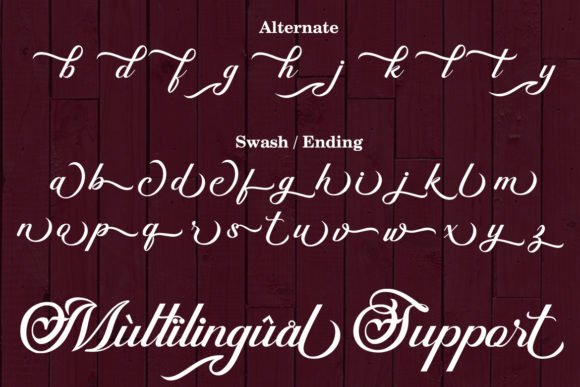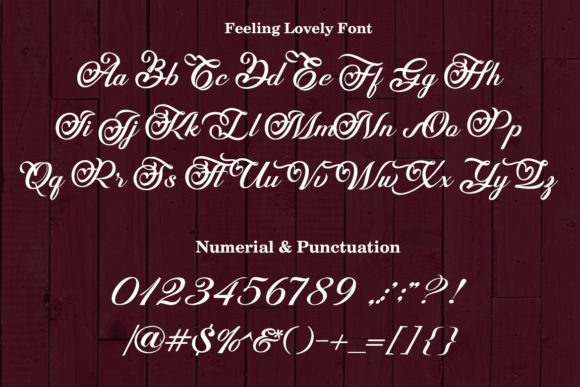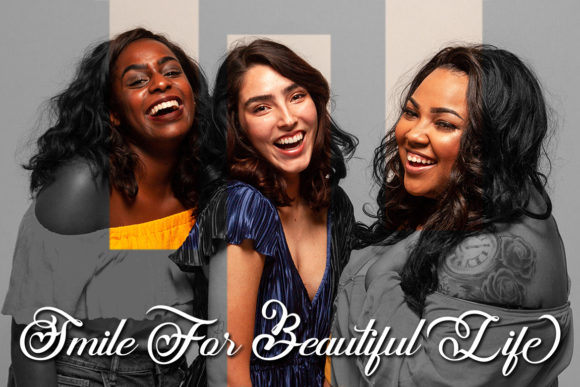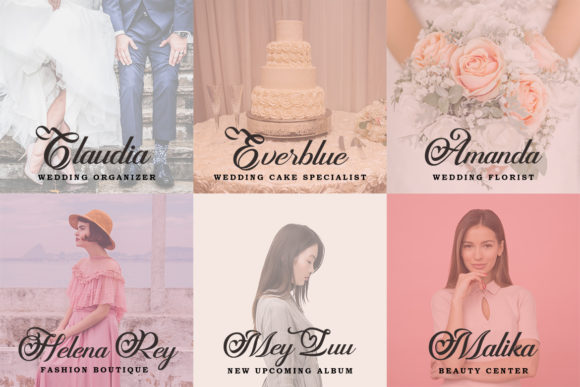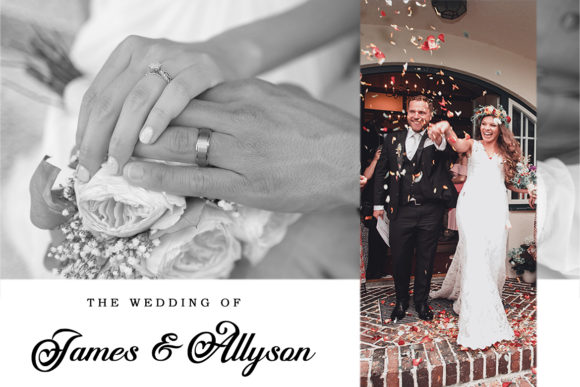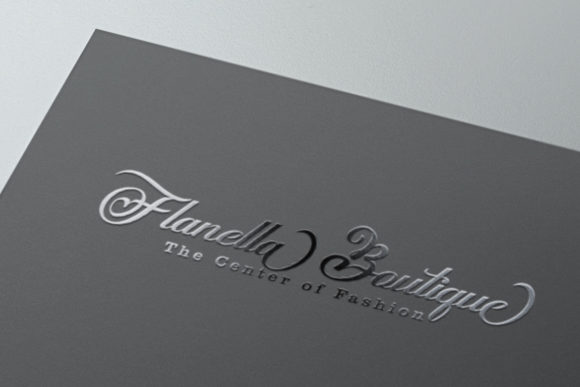
Introducing Feeling Lovely Font: Elevate Your Designs with Elegance
In the world of typography, a well-crafted font can make all the difference in elevating your designs to new heights. For those seeking an elegant and modern calligraphy font, look no further than Feeling Lovely Font. This stunning typeface boasts a unique varying baseline, giving it a distinctive and sophisticated feel that’s perfect for a wide range of applications.
What Makes Feeling Lovely Font So Special?
The Feeling Lovely Font is an exquisite example of modern calligraphy, designed to add a touch of luxury and refinement to any design project. Its elegant lines, flowing curves, and subtle variations in baseline create a sense of movement and fluidity, making it a standout choice for designers and crafters. Whether you’re working on a wedding invitation, a logo, or a branding project, this font is sure to impress.
One of the most significant advantages of Feeling Lovely Font is its incredible versatility. This font can be used for a wide range of purposes, including:
- Headings: Add a touch of elegance to your headings and titles with Feeling Lovely Font.
- Weddings: Create stunning wedding invitations, save-the-dates, and ceremony programs with this beautiful font.
- Invitations: Whether it’s a birthday party, baby shower, or graduation celebration, Feeling Lovely Font is the perfect choice for creating memorable invitations.
- Signatures: Add a personal touch to your email signatures, business cards, or letterheads with this elegant font.
- Logos and Branding: Create a lasting impression with Feeling Lovely Font, perfect for logos, branding, and packaging design.
- T-Shirts and Merchandise: Design eye-catching apparel and merchandise with this modern calligraphy font.
- Letterheads and Stationery: Elevate your business correspondence with Feeling Lovely Font.
Why Designers and Crafters Love Feeling Lovely Font
Designers and crafters alike adore Feeling Lovely Font for its unique blend of elegance and modernity. Here are just a few reasons why:
- Ease of Use: This font is incredibly easy to use, even for those new to design or crafting.
- Customization: Feeling Lovely Font can be easily customized to fit your specific design needs.
- Unique Style: This font’s distinctive varying baseline and modern feel set it apart from more traditional calligraphy fonts.
- High-Quality: Feeling Lovely Font is a high-quality typeface, carefully crafted to ensure crisp and clear rendering.
Tips for Getting the Most Out of Feeling Lovely Font
To truly make the most of Feeling Lovely Font, consider the following tips:
- Experiment with Sizes: Play around with different font sizes to find the perfect balance for your design.
- Pair with Complementary Fonts: Combine Feeling Lovely Font with complementary fonts to create a cohesive look.
- Adjust Line Spacing: Adjust the line spacing to create a sense of flow and harmony in your text.
- Use on High-Quality Paper or Cardstock: For print designs, use Feeling Lovely Font on high-quality paper or cardstock to showcase its elegance.
In conclusion, Feeling Lovely Font is an exquisite calligraphy font that can elevate any design project to new heights. Its unique blend of elegance, modernity, and versatility makes it a must-have for designers and crafters. Whether you’re working on a wedding invitation, logo, or branding project, this font is sure to impress. So why wait? Download Feeling Lovely Font today and experience the power of beautiful typography for yourself!